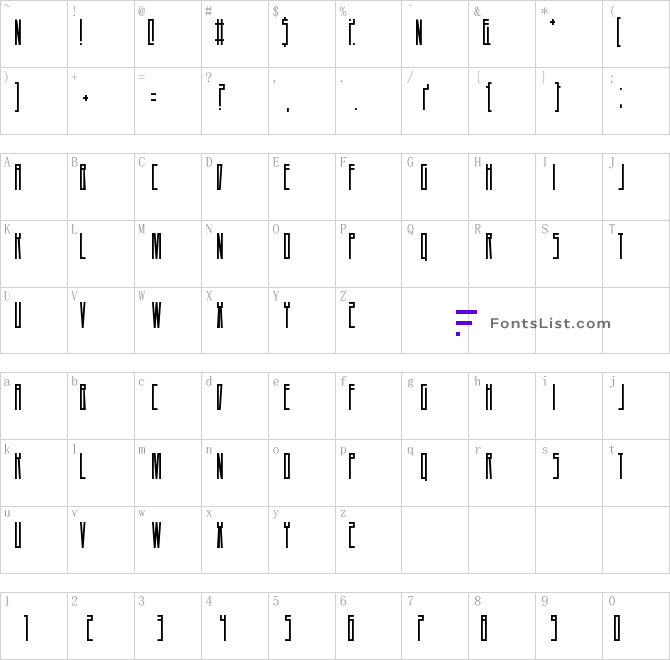
- Font Name:A Dash of Salt
A-Dash-of-Salt.otf is a very beautiful artistic font, A-Dash-of-Salt.otf is widely used in the design and printing of various books and pictures,A-Dash-of-Salt.otf has a strong visual impact,A-Dash-of-Salt.otf is a commonly used font in newspapers, magazines and books, and is used in posters, e-commerce Poster design, store design, logo design, font design and other fields.A-Dash-of-Salt.